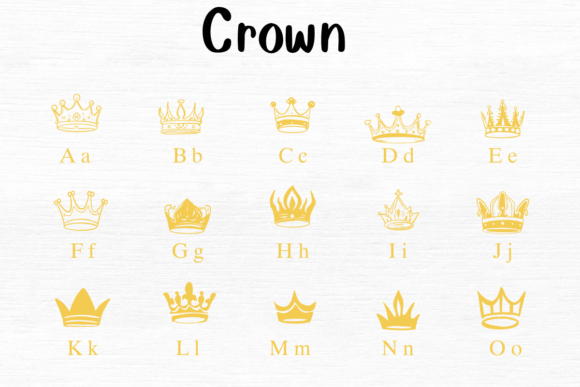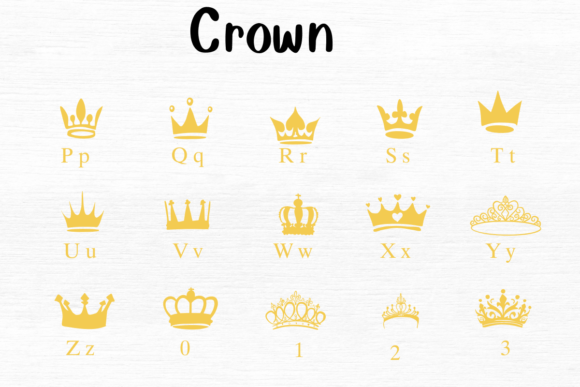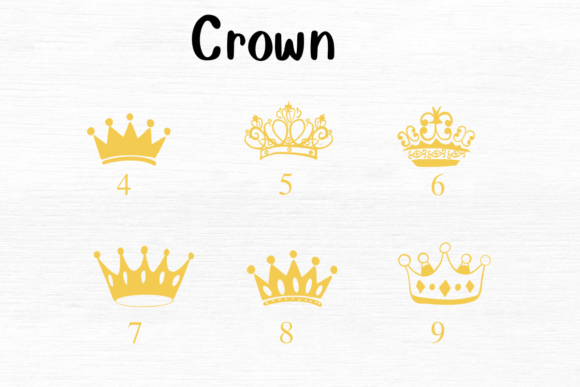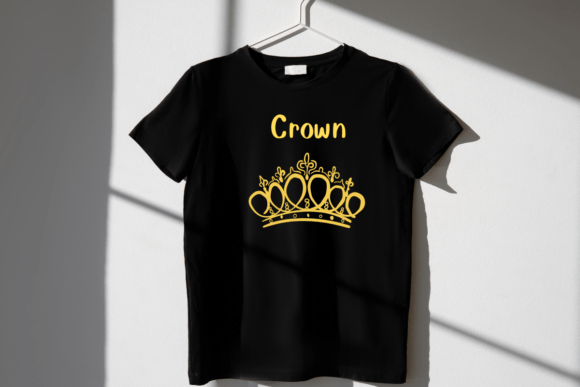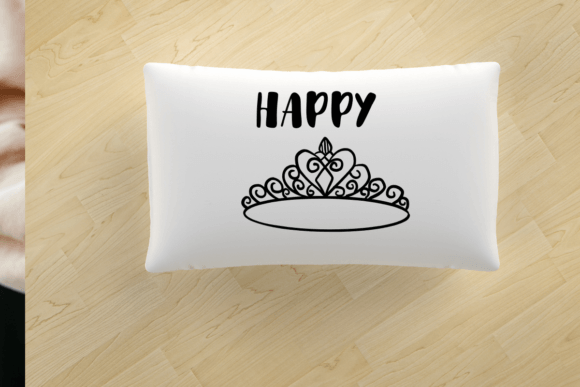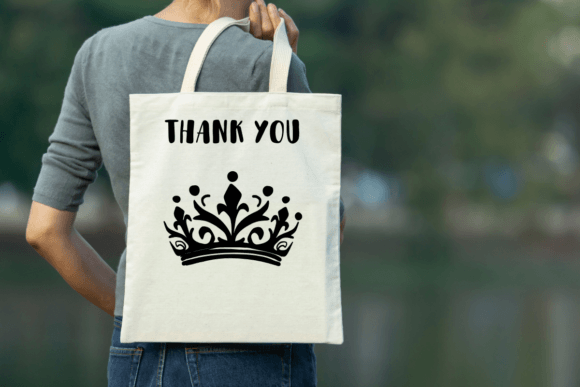
Crown Font: Add a Royal Touch to Your Designs
Are you looking for a unique and stylish way to add a regal flair to your designs? Look no further than the Crown Font, a playful and decorative dingbat font that features a variety of crown symbols. In this article, we’ll explore the features and benefits of the Crown Font, and how you can use it to elevate your designs.
What is Crown Font?
Crown Font is a decorative dingbat font that consists of a collection of crown symbols, each designed to add a touch of royalty to your work. The font features a range of unique crown illustrations, each carefully crafted to provide a stylish and thematic element to your designs. Whether you’re creating invitations, posters, or any other project, Crown Font is the perfect choice for adding a regal touch.
Key Features of Crown Font
- Unique Crown Illustrations: Each character in the Crown Font is a unique crown illustration, providing a wide range of options for adding a royal touch to your designs.
- Playful and Decorative: Crown Font is a playful and decorative font that’s perfect for adding a touch of whimsy to your designs.
- Dingbat Font: As a dingbat font, Crown Font features a collection of symbols and illustrations rather than traditional letters and numbers.
- Easily Customizable: Crown Font can be easily customized to fit your design needs, allowing you to adjust the size, color, and style to suit your project.
Benefits of Using Crown Font
So why choose Crown Font for your designs? Here are just a few benefits of using this unique and stylish font:
- Adds a Regal Touch: Crown Font provides a quick and easy way to add a royal touch to your designs, making it perfect for projects that require a bit of luxury and sophistication.
- Increases Visual Interest: The unique crown illustrations in Crown Font add visual interest to your designs, making them more engaging and eye-catching.
- Versatile: Crown Font can be used in a wide range of projects, from invitations and posters to social media graphics and more.
Using Crown Font in Your Designs
So how can you use Crown Font in your designs? Here are a few ideas to get you started:
- Invitations: Add a royal touch to your invitations with Crown Font, perfect for weddings, birthdays, and other special occasions.
- Posters: Use Crown Font to add a touch of luxury and sophistication to your posters, whether you’re promoting a product or service or simply creating a decorative piece.
- Social Media Graphics: Add a regal touch to your social media graphics with Crown Font, perfect for creating eye-catching posts and stories.
- Crafting Projects: Crown Font is also perfect for crafters, providing a unique and stylish way to add a royal touch to your DIY projects, from scrapbooking to card making.
Tips and Tricks for Working with Crown Font
Here are a few tips and tricks for working with Crown Font:
- Experiment with Different Sizes: Don’t be afraid to experiment with different sizes and styles to find the perfect fit for your design.
- Combine with Other Fonts: Crown Font pairs well with a wide range of other fonts, so don’t be afraid to combine it with other styles to create a unique look.
- Use in Combination with Images: Crown Font looks great when used in combination with images, so consider pairing it with photos or illustrations to add an extra layer of interest to your design.
In conclusion, Crown Font is a unique and stylish dingbat font that provides a quick and easy way to add a royal touch to your designs. With its playful and decorative crown illustrations, Crown Font is perfect for a wide range of projects, from invitations and posters to social media graphics and crafting projects. Whether you’re a designer or crafter, Crown Font is a great choice for adding a touch of luxury and sophistication to your work.